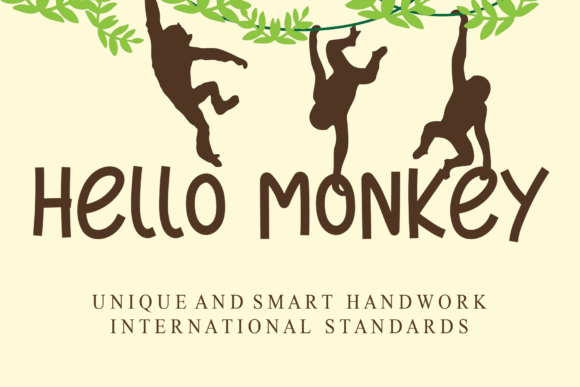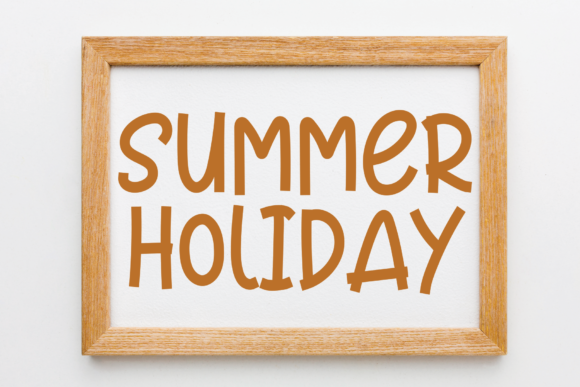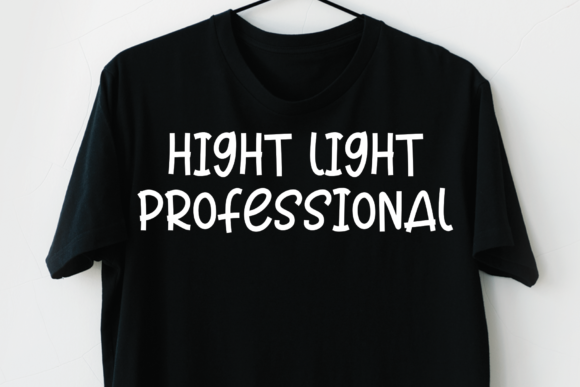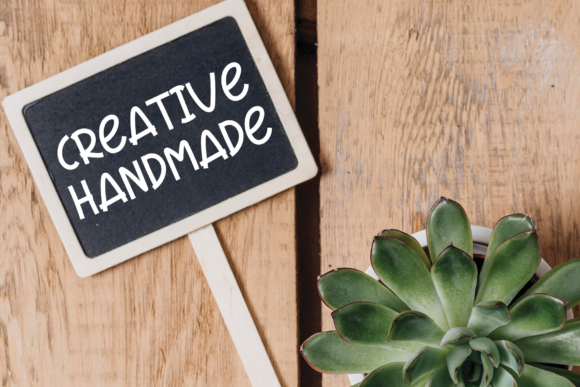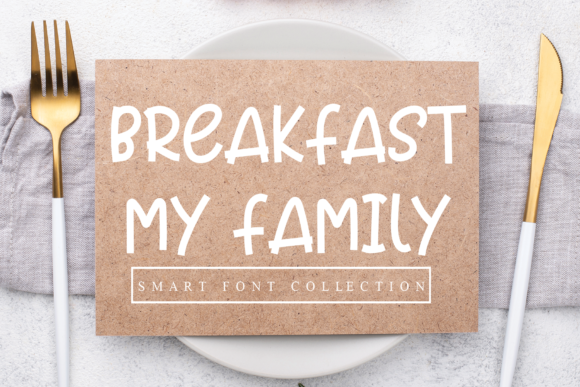
Unleash Your Inner Child with Hello Monkey Font
Have you ever stared at a blank canvas, waiting for inspiration to strike? Maybe you’re brainstorming ideas for a children’s book or a cartoon character, but nothing seems quite right. That’s when the creative spark hits – and you’re suddenly imagining a world of colorful characters and whimsical adventures.
Enter the Hello Monkey Font, a delightful display font that’s perfect for bringing your creative vision to life. This charming font is designed to add a touch of sweetness and playfulness to any design, whether you’re creating a children’s game, a cartoon, or simply a graphic that needs a bit of personality.
As a designer, you’ll appreciate the versatility and uniqueness of the Hello Monkey Font – making it an invaluable addition to your creative toolkit.
Hello Monkey Font Key Features
- Font Family: Hello Monkey is a sans-serif font family, suitable for digital and print media.
- Character Set: Includes over 250 glyphs, covering a wide range of languages, including Latin, Cyrillic, and Greek.
- Size and Resolution: Available in various font sizes, with a recommended resolution of 300 DPI for print media and 72 DPI for digital media.
- Unique Characteristics: Features a modern and playful design, with a unique combination of geometric shapes and organic curves.
Hello Monkey Font Review
Overall, I’d say that Hello Monkey Font is a fun, playful font that can add a touch of whimsy to your designs. ✨ The font’s unique, hand-drawn feel and quirky character set make it perfect for projects that need a bit of personality.
- Fun and playful aesthetic
- Unique, hand-drawn feel
- Quirky character set
- Great for projects that need a bit of personality
However, there are a few limitations to consider. ⚠️ The font may not be suitable for formal or professional projects, as it can come across as unprofessional. Additionally, the font’s irregular shape and inconsistent spacing can make it difficult to read at larger sizes.
- May not be suitable for formal or professional projects
- Can be difficult to read at larger sizes due to irregular shape and inconsistent spacing
Overall, I’d recommend Hello Monkey Font for projects that need a bit of personality and whimsy. While it may not be suitable for every project, it’s a great option for designers looking to add some fun and creativity to their work.
The Hello Monkey Font is a playful and whimsical font that’s perfect for:
- Party invitations
- Brand logos and icons
- Graphic design projects that require a fun and quirky touch
Alternatives to Hello Monkey Font for Designers
Cream Soda Font is a playful, handwritten font perfect for creating a friendly and approachable atmosphere. It’s ideal for use in children’s books, food labels, and advertisements that require a casual tone. Compared to Hello Monkey Font, Cream Soda Font has a more rounded and smooth texture, making it suitable for a wider range of applications.
Great Vibes Font is a beautiful, handwritten script font that’s perfect for creating a sense of elegance and sophistication. It’s ideal for use in wedding invitations, luxury brands, and high-end advertising campaigns that require a touch of class. Compared to Hello Monkey Font, Great Vibes Font has a more refined and polished texture, making it suitable for high-end applications.
Pacifico Font is a beautiful, modern script font that’s perfect for creating a sense of relaxation and tranquility. It’s ideal for use in travel brochures, spa websites, and advertising campaigns that require a calming atmosphere. Compared to Hello Monkey Font, Pacifico Font has a more minimalist and elegant texture, making it suitable for applications that require a sense of calm.